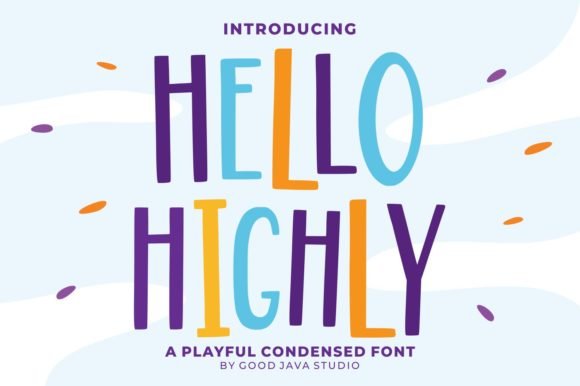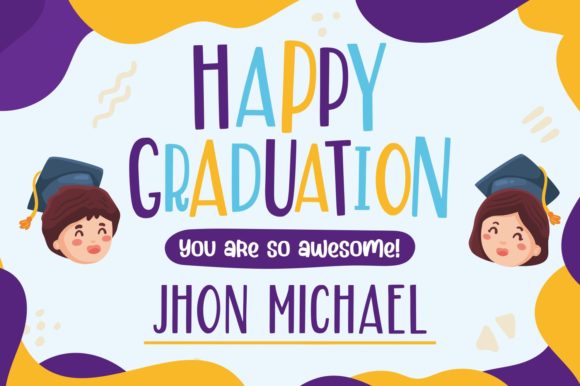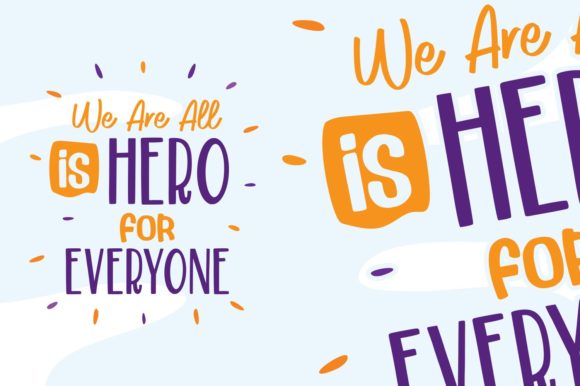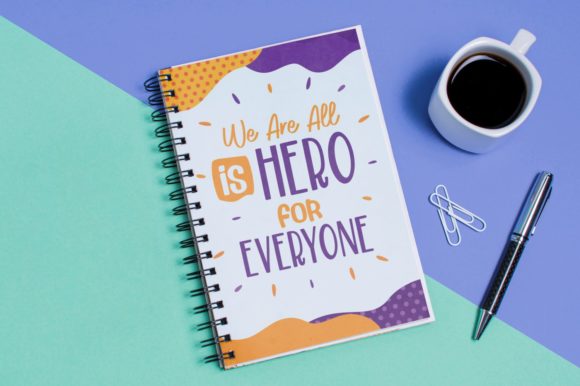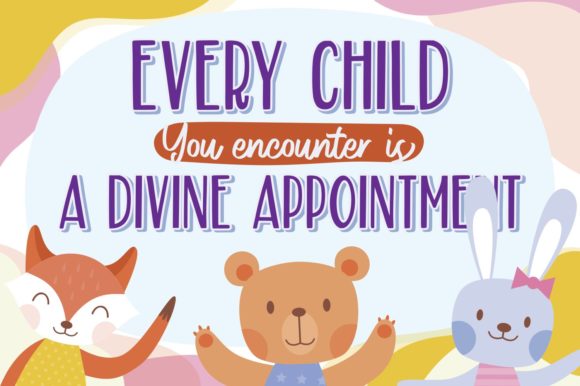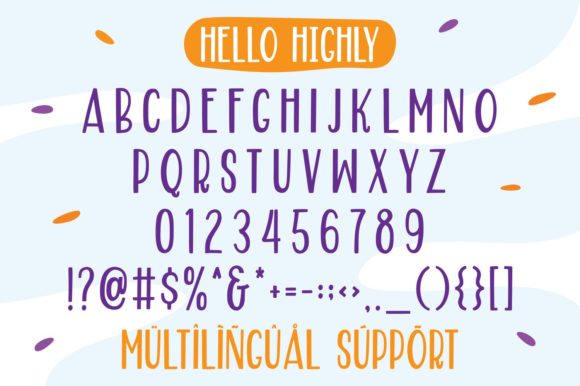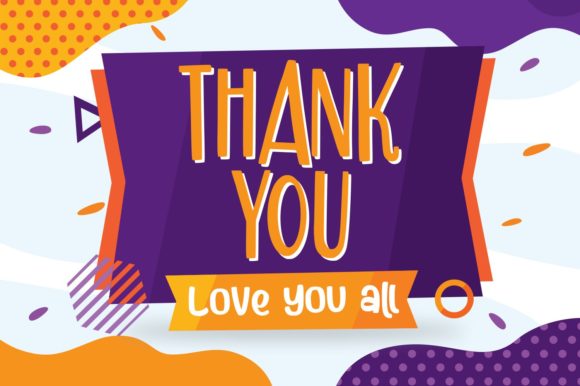
Enter the Hello Highly Font, a vibrant and playful display font that’s sure to add some much-needed personality to your work. With its friendly feel and wide range of applications, this font is the perfect addition to any creative project. Whether you’re designing a logo, a website, or a social media campaign, the Hello Highly Font is a valuable asset that’s sure to elevate your ideas to the next level.
Hello Highly Font Key Features
- Unique Characteristics: Hello Highly Font features a unique blend of modern and vintage elements, with intricate details and subtle texture that add depth and visual interest to any design.
Hello Highly Font Review
I recently had the chance to work with the Hello Highly Font, and I must say it’s a solid addition to any designer’s toolkit. ✨ Here are some things I really like about it:
- It’s got a unique, playful feel that’s perfect for creative projects.
- The font is highly customizable, with a range of weights and styles to choose from.
- The font is well-suited for headings and titles, where its bold, eye-catching design really shines.
That being said, there are a few limitations to keep in mind:
- At smaller font sizes, the letters can become a bit fuzzy and difficult to read.
- The font may not be suitable for long blocks of text, as it can start to feel overwhelming.
Overall, I’d say the Hello Highly Font is a great choice for designers looking to add some personality to their projects. It’s perfect for titles, headings, and other design elements where you want to make a statement. With a little bit of caution and planning, it can be a real asset to your toolkit.